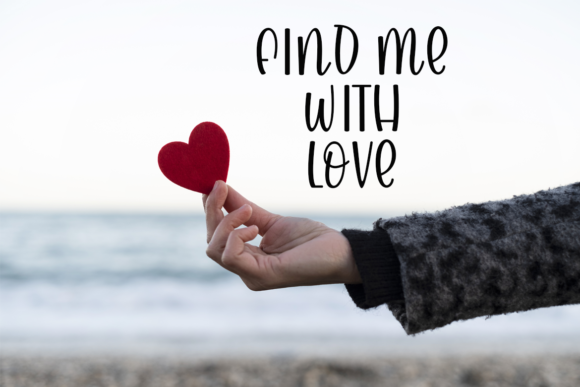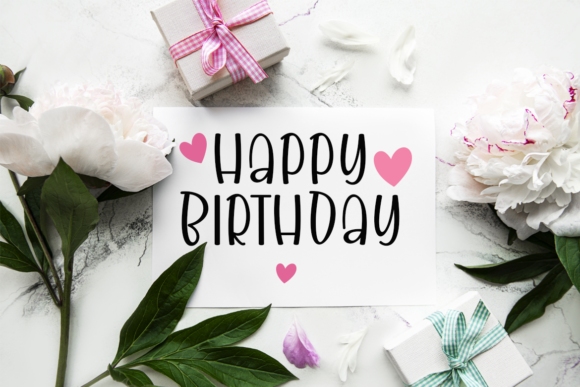
About Milky Honey Font
Milky Honey is a cute and quirky display font that will add an incredibly joyful touch to your work. Add this beautiful display font to each of your creative ideas and notice how it makes them stand out!